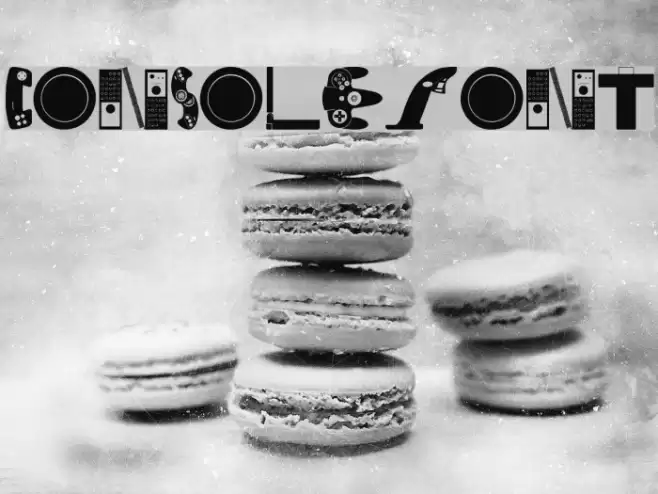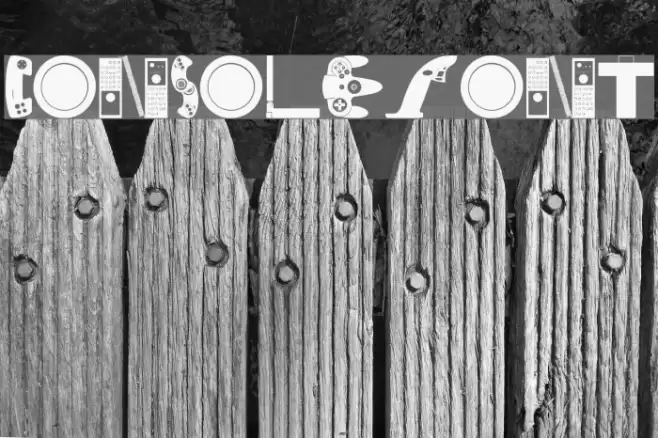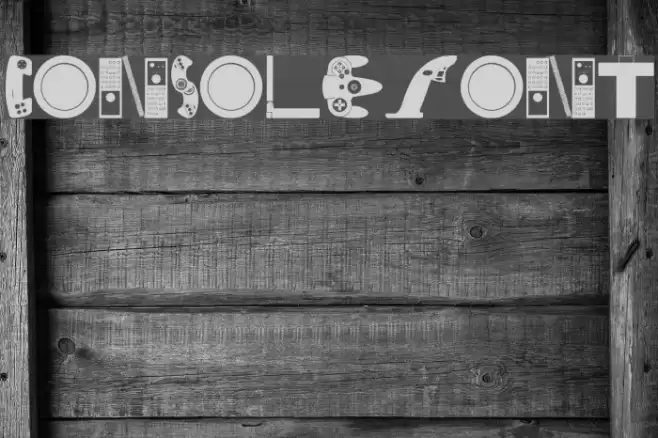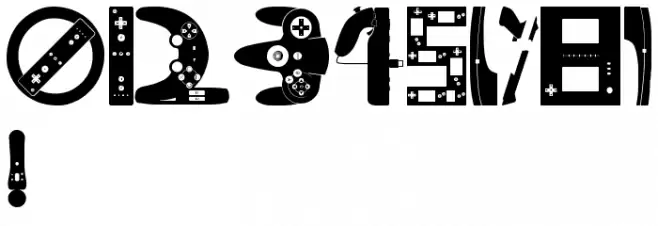
Consolefont Font
Consolefont Description
This font is a playful and creative design that incorporates elements of gaming consoles and controllers into each character. The letters and numbers are crafted using shapes and symbols reminiscent of various gaming devices, creating a unique and visually engaging style. The font is highly decorative, with each character featuring intricate details that mimic buttons, joysticks, and other gaming-related components. This design is perfect for projects that aim to capture the essence of gaming culture, offering a nostalgic yet modern twist. The characters are bold and eye-catching, making them suitable for headlines and display purposes.
A decorative font inspired by gaming consoles and controllers, ideal for gaming-themed projects from Uncategorized fonts.
- Proposed Projects: Video game logos, gaming event posters, merchandise for gaming conventions, themed social media graphics.